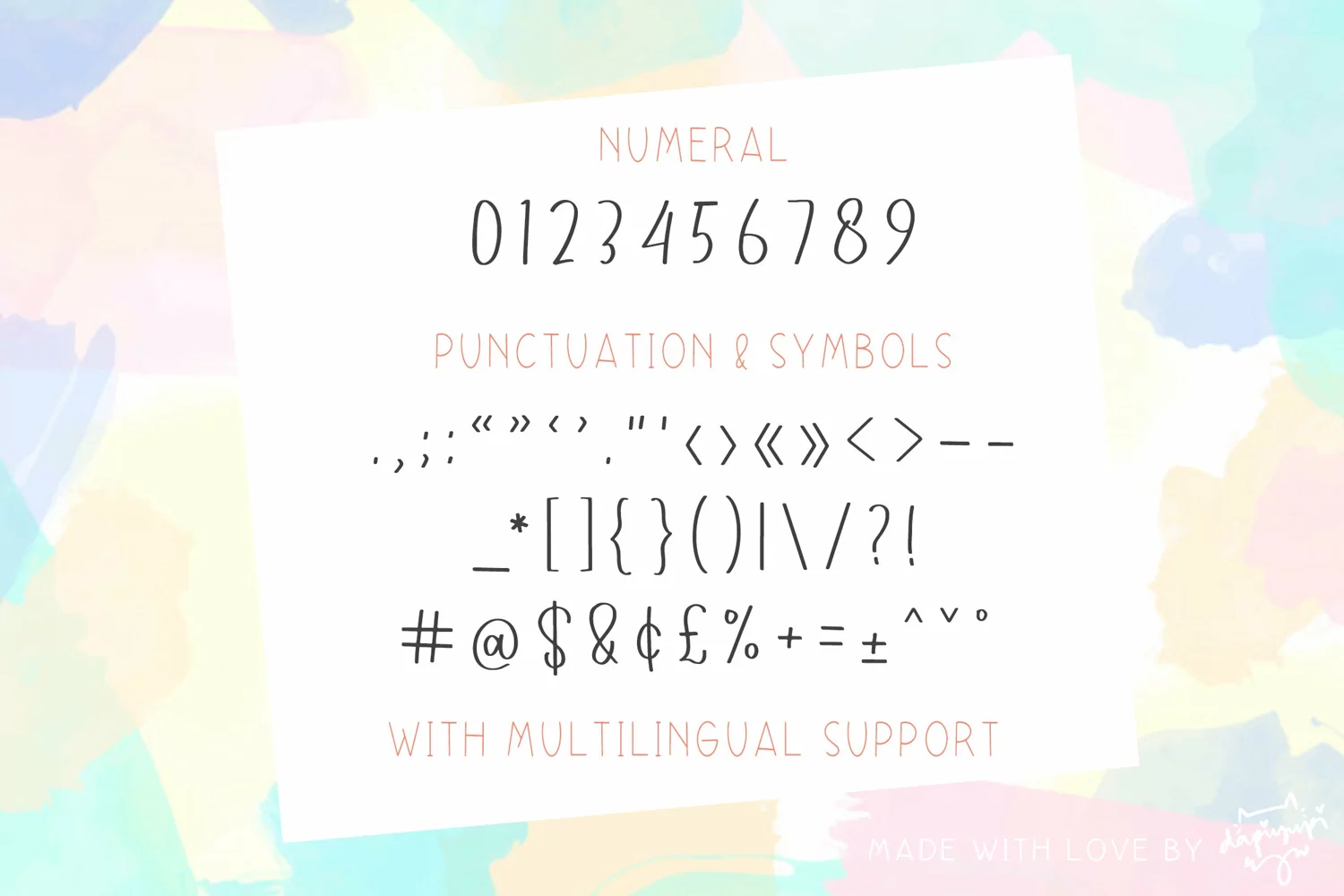
Hompimpa is a cute and quirky handwritten font. Sweet and playful, this typeface can elevate the look of any creation ranging from product packaging to business cards, and more!
Hompimpa